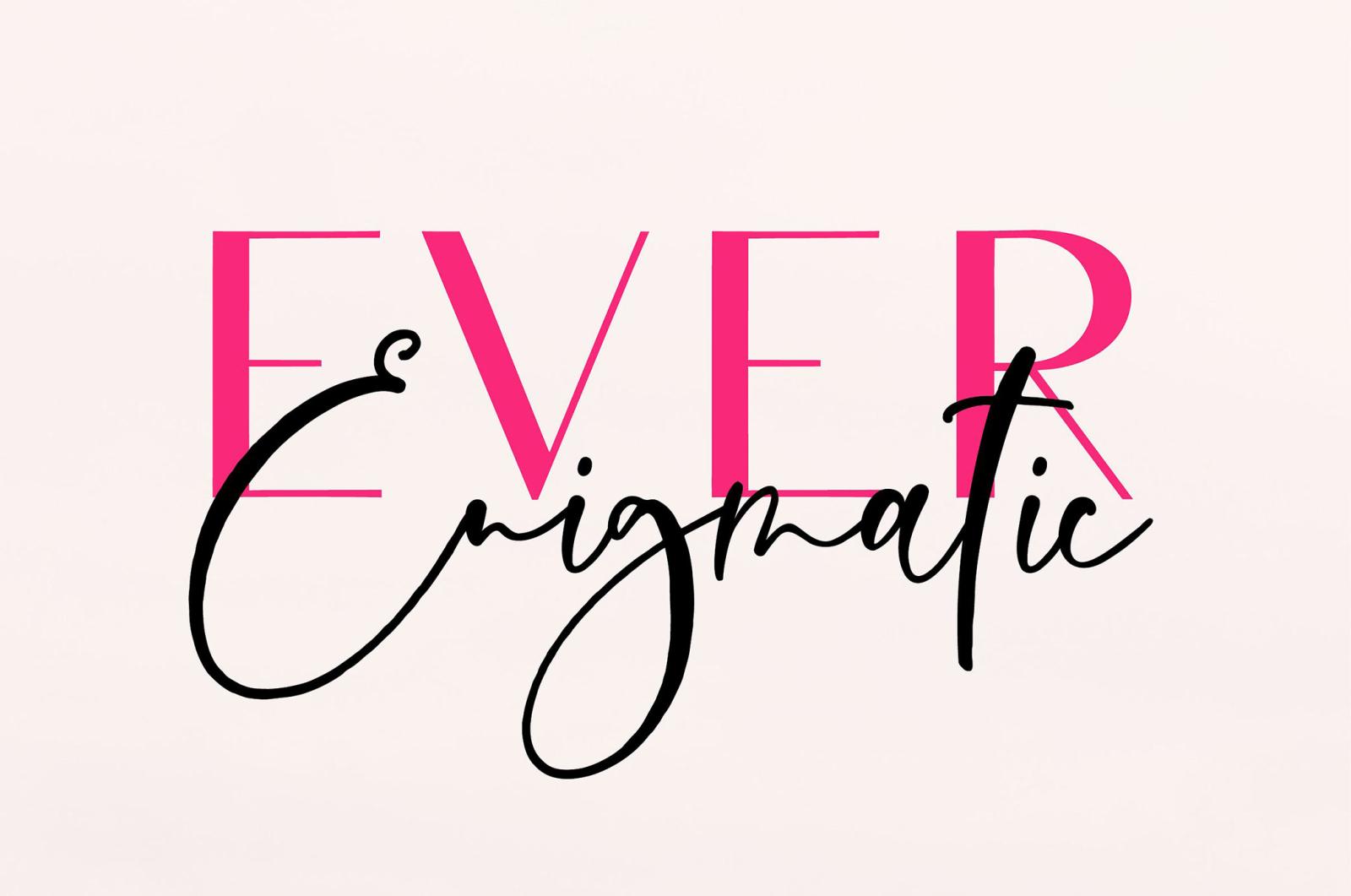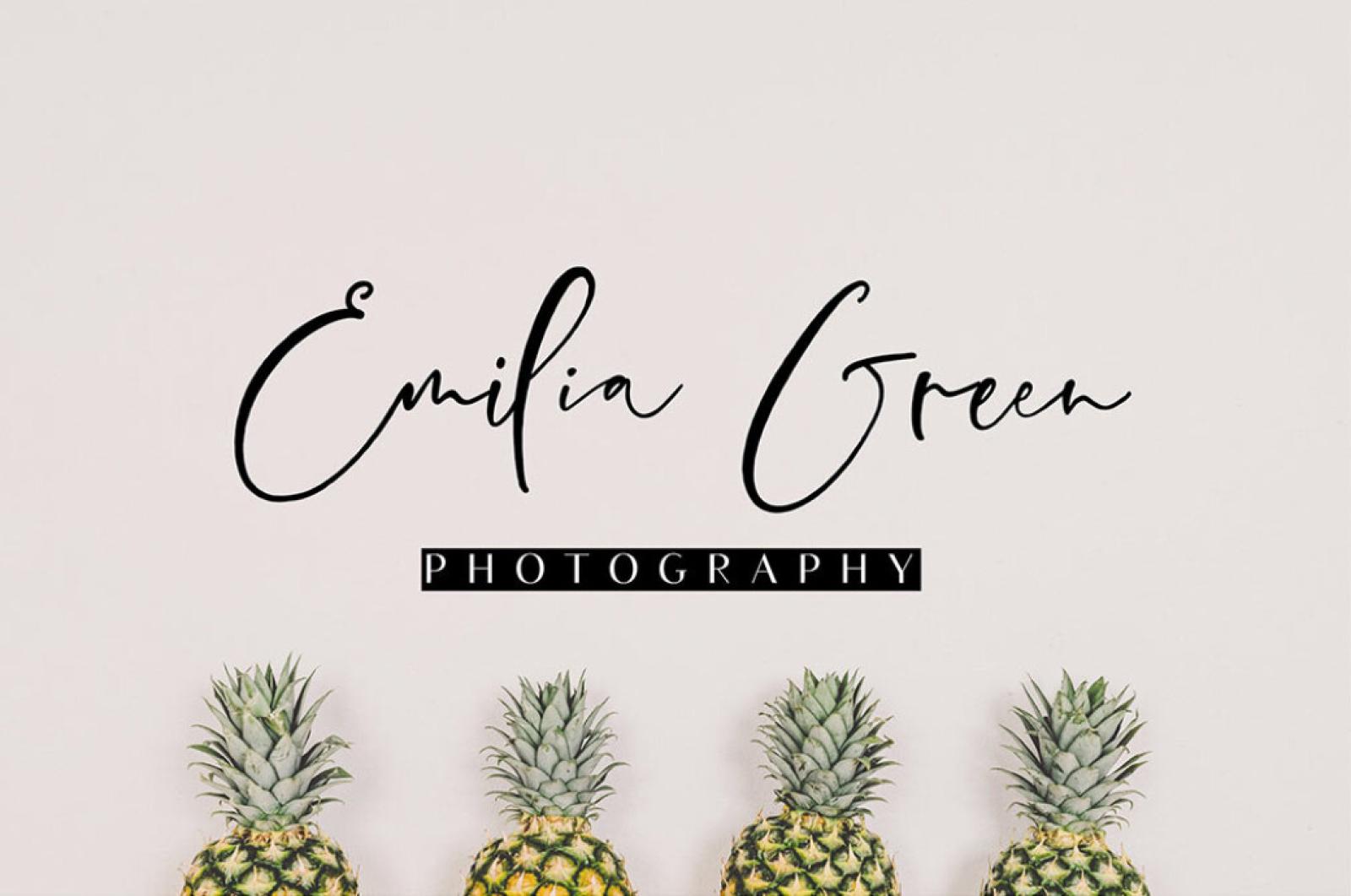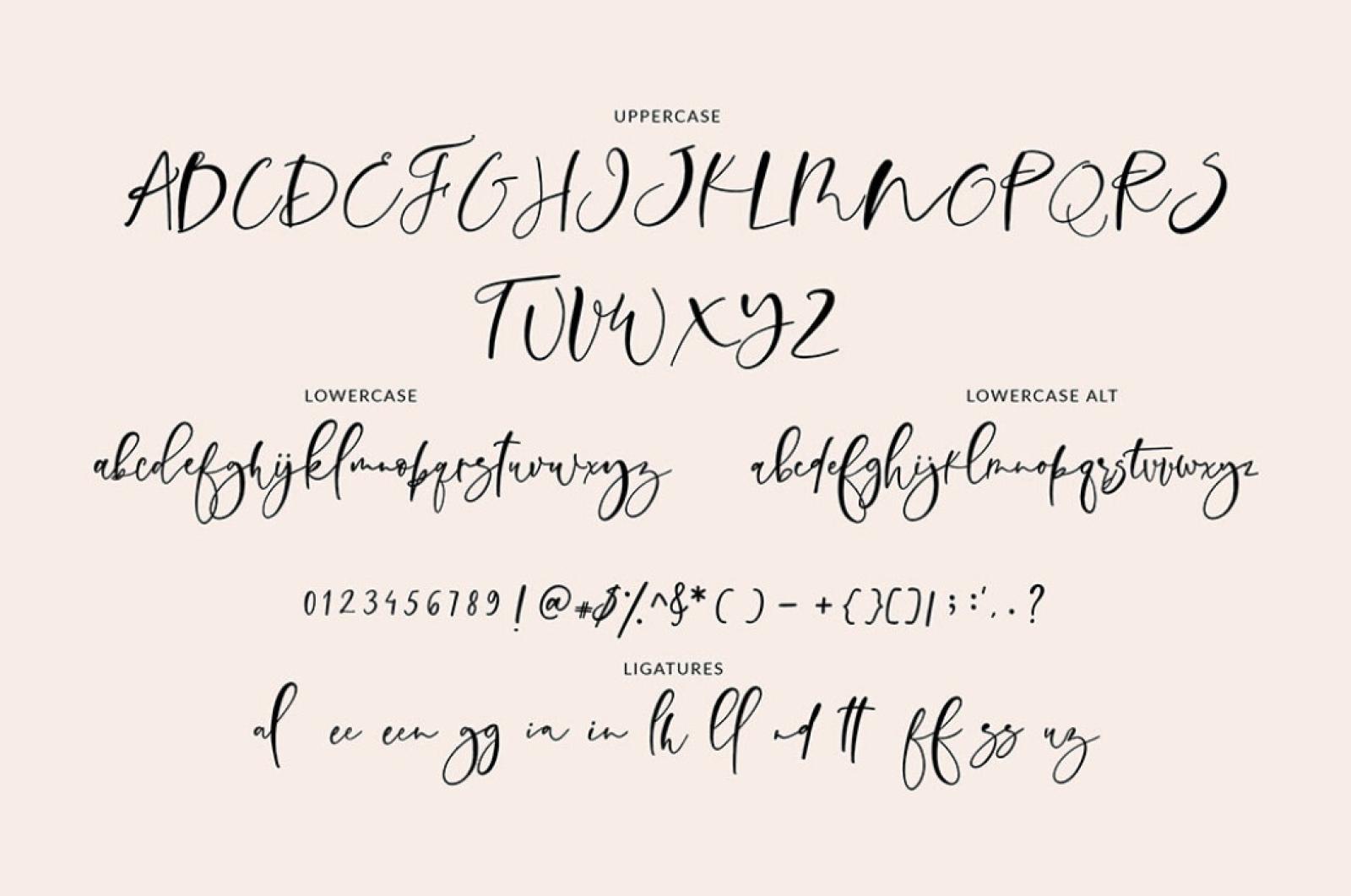
Ever Enigmatic Font Duo
Serif is for pearls and script for diamonds and we've happy to bring these treasures together. Ever Enigmatic lovingly embraces these 2 perfectly matching contrasts and adds some frivolity to one and some spirit to another.
This font duo is an exceptional purchase, and we recommend you to pay special attention to it and its creator, The Ink Affair, as it is the genuine beauty for your projects: invitations, branding, social media, advertisements and so much more! The Ever Enigmatic script font also contains some lovely ligatures and alternate lowercase symbols, which are available as a separate typeface truly romantic and airy.